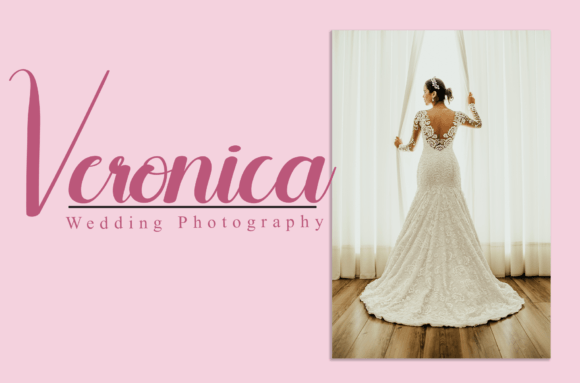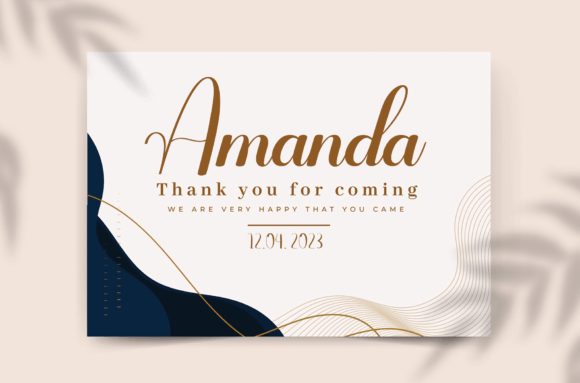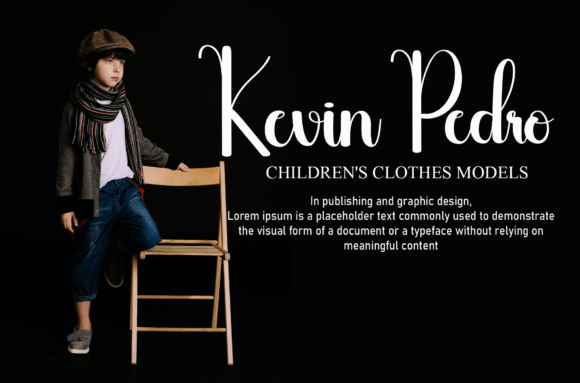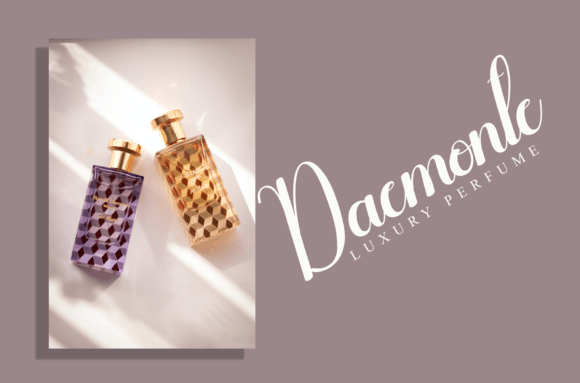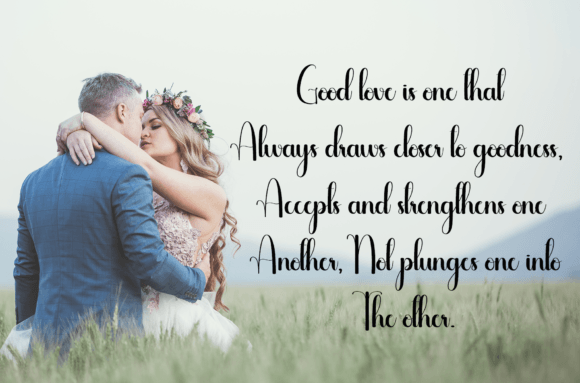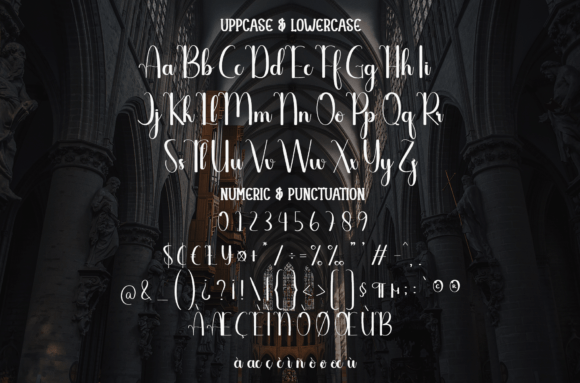
The Gothic Font: A Sweet and Friendly Handwritten Delight
I’ll never forget the moment I stumbled upon the Gothic font. I was working on a wedding invitation project for a client, and I was struggling to find the perfect font that would capture the sweet and romantic vibe of the occasion. As I scrolled through my font library, I stumbled upon Gothic, and it was love at first sight! ✨ The font’s fresh and neat handwritten style instantly won me over, and I knew I had found the perfect fit for my project.
An Honest Review: The Good and the Quirky
- ✨ Sweet and friendly handwritten style that’s perfect for wedding invitations, cards, and other designs that need a fun touch
- ✅ Fresh and neat aesthetic that’s both modern and elegant
- 💕 Highly legible, even at smaller font sizes
- 🎉 Supports OpenType features, glyphs, and stylistic alternates for added creativity
- 🤔 Limited character set compared to some other fonts, which can make it less suitable for very long texts
- ⚠️ Some users may find the font too casual or playful for certain design projects
The Designer Inspiration Behind Gothic
The Gothic font was designed with the intention of creating a sweet and friendly handwritten font that’s perfect for a variety of design projects. The designer wanted to create a font that would capture the essence of a handwritten note, while still being clean and legible. The result is a font that’s both modern and elegant, with a touch of playfulness and whimsy.
Q: What is the Gothic font?
A: The Gothic font is a sweet and friendly handwritten font that’s perfect for wedding invitations, cards, and other designs that need a fun touch.
Q: Is the Gothic font suitable for long texts?
A: While the Gothic font is highly legible, it may not be the best choice for very long texts due to its limited character set.